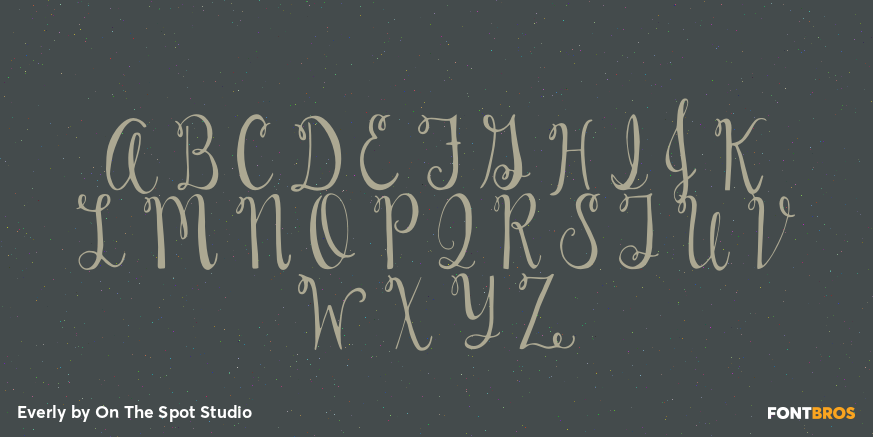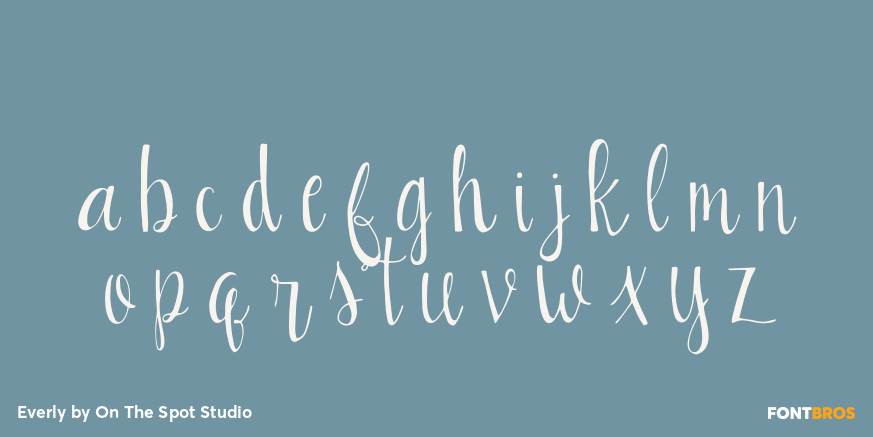
Everly
Font Family by On The Spot Studio
Everly was a labor of love. My first true script font using my super duper, complicated, i am still totally learning it, font software! I based Everly on my everyday lettering style. I hope you love her as much as I do!